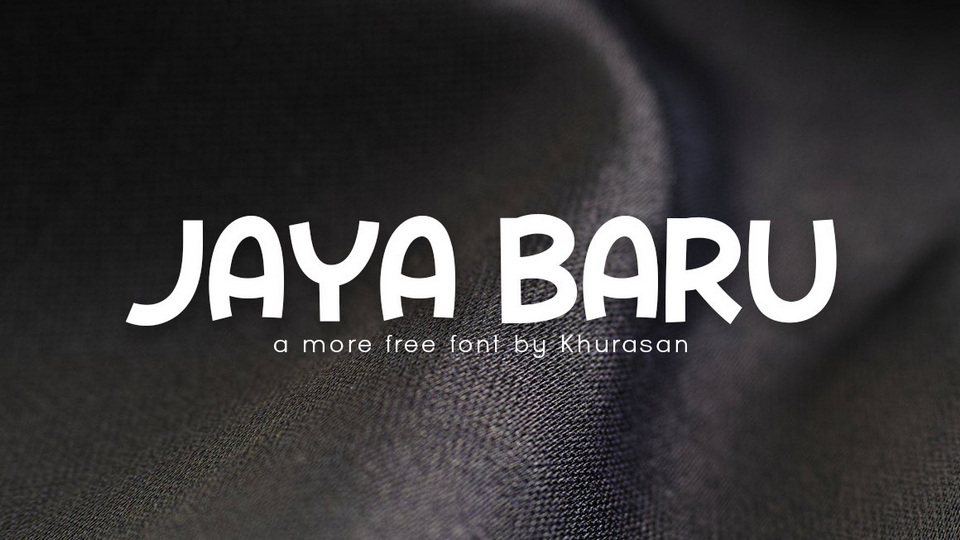
Download Jaya Baru font, a funny and fancy display typeface with a playful look. Jaya Baru is perfect for posters, logos, magazines, cover books, banners, and much more.